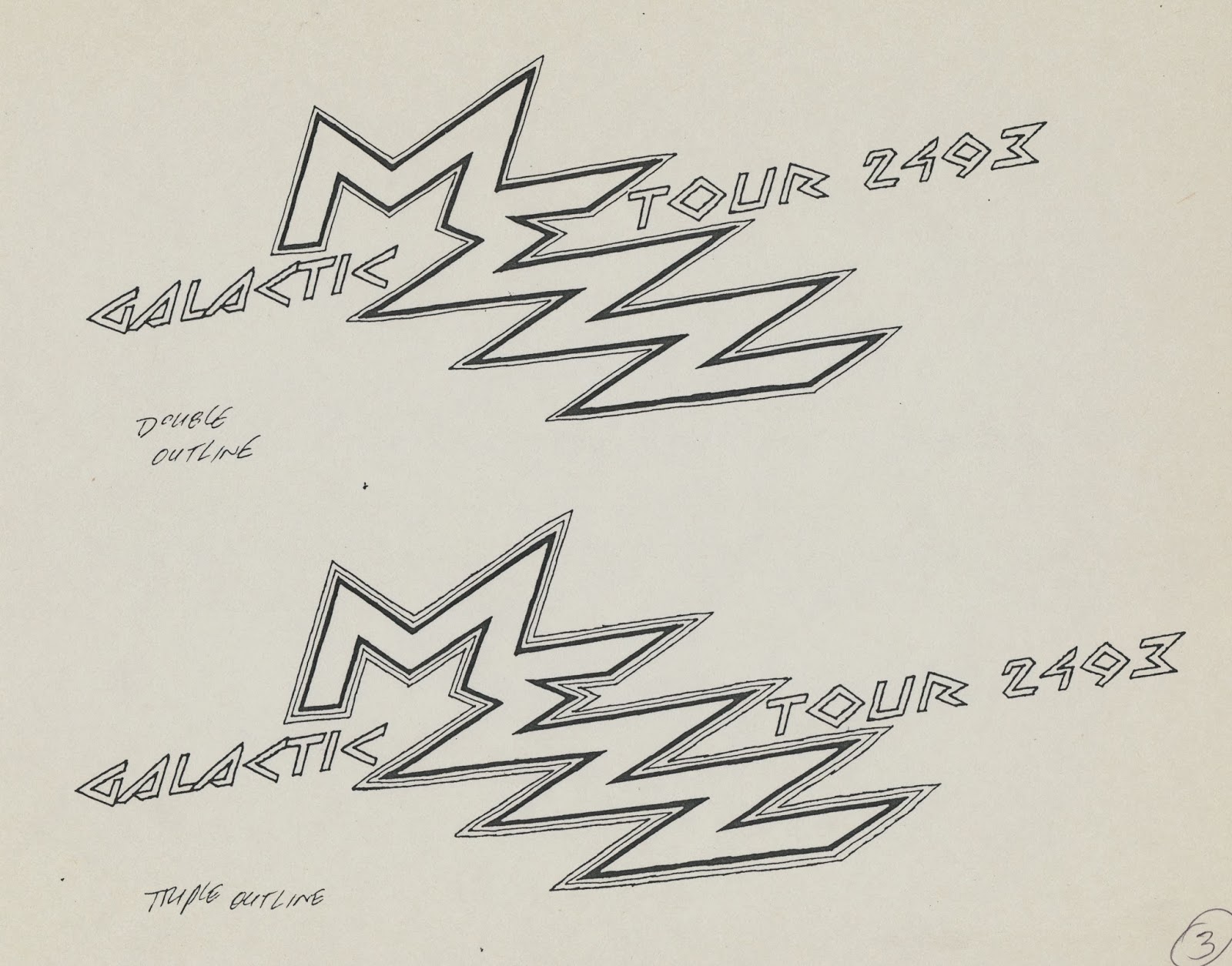
Anatomy of a Logo: Mezz Galactic Tour 2493
In the second week of November 1992, Dark Horse editor, Anina Bennett, called and offered two logos to me: Hammer of God (shown last week) and Mezz. (They were followed by Will to Power and Barb Wire.) I said I was interested and waited for her package.
Anina’s package included photocopies of a few finished pages, some penciled pages. Her cover letter, dated November 16, 1992, described the book’s concept.
Thumbnail sketches
Thumbnail designs
Preparing to develop the top design
Refining the design and adding effects
Photocopy enlargement of thumbnail design
and preparation to develop it
Tracing paper overlay
Refining the design
Various effects
Photocopy enlargement of design
and preparation to develop it
A single letterform for M and E. Optically,
the M looks shorter than the E and Z.
Subtitle in a square grid
Various effects and alternate arrangement of subtitle
Anina selected sketch 1A.
Spacing adjusted between letters and words of subtitle
A same-size photostat was made of the original art for my
files. Below is a scan of the stitched-together photostat.
Mezz, scheduled for 1993, takes place 500 years in the future. Mezz was delayed a year, so someone at Dark Horse adjusted the subtitle’s year to 2494. The comic book cover had a May 1994 date.
In the original logo, the letters in Barb are stacked vertically to the left of Wire.
In my initial sketches, I saw the possibility of a single letterform acting as three letters: B, W and E.
On another page of sketches, I stacked the name and created a diagonal link with the Rs. I enlarged it and worked on refining it.
As it turned out, the letters in Barb were the same height. The W in Wire extended below the baseline. The serifs were spiky, somewhat like barbwire. I wanted to make both names somewhat equal in size and more legible.
Further refinements were made to the Bs, although they still didn’t match. The small negative spaces below the A and R, and in the W are distracting and probably would have been eliminated. The A isn't quite right; it needed a different slant to increase the space between it and the B, and decrease the space with the R. But this design was faxed to Marilee and she liked it.
I started exploring a symmetrical design in this sketch, which was done on October 22.
Marilee called and said to hold off on any more work on Barb Wire. On November 18, she called and said two things: a memo had been issued to the editors stating that all logos had to be produced in-house; and that Barb Wire had been optioned for a movie, so, no changes could be made to the logo. (As it turned out, the movie logo used Wire, while Barb was redesigned and made the same height.) After the conversation, I sent in my invoice for the kill fee and never heard from Dark Horse again.